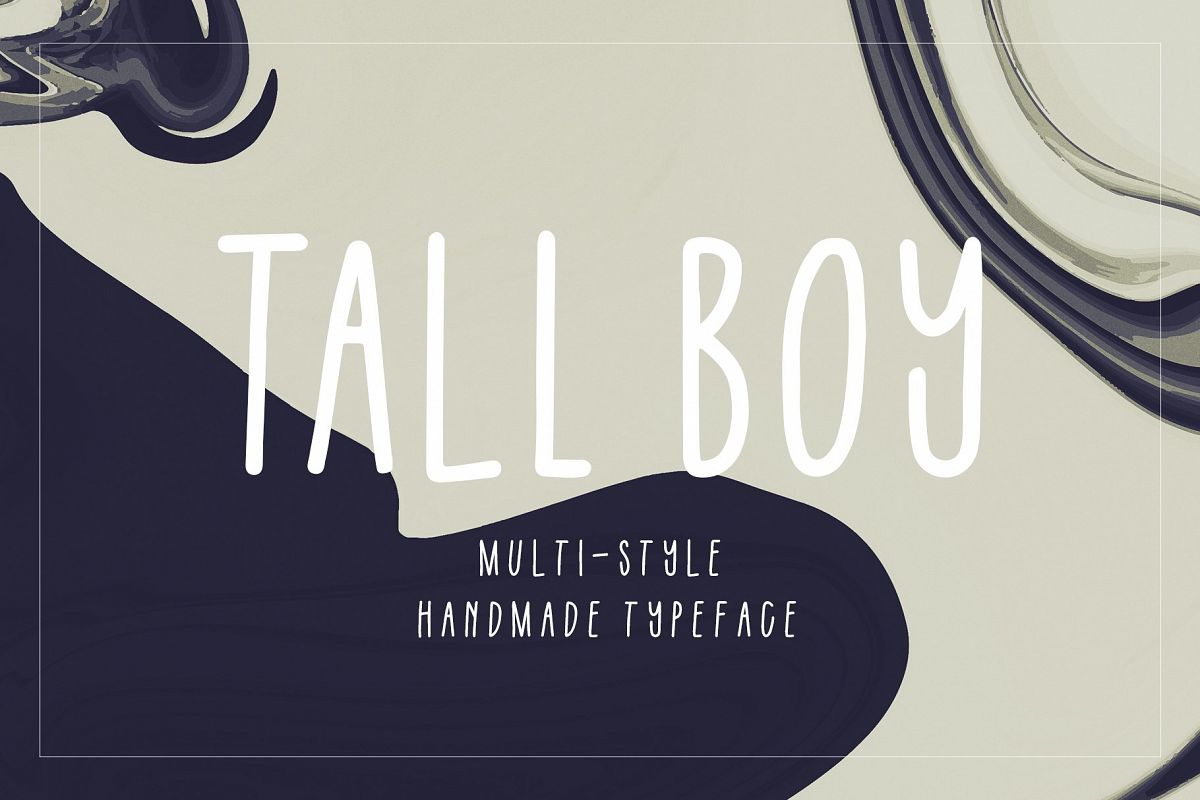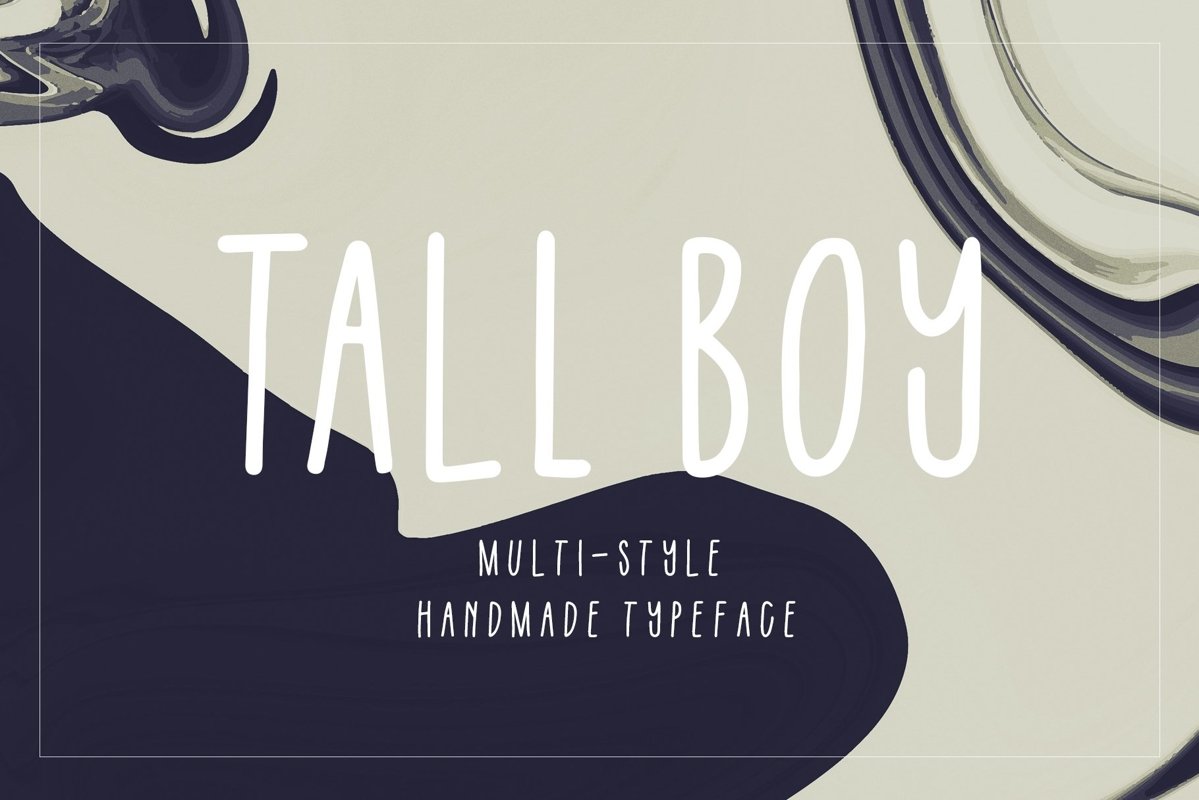
Tall Boy is a playful handmade font to elevate your designs, logos, posters, apparel, and products. This all-caps family includes a "high font" and a "low font" in regular, italic, and bold. This font also has punctuation and numbers!
Looks good both big and small!